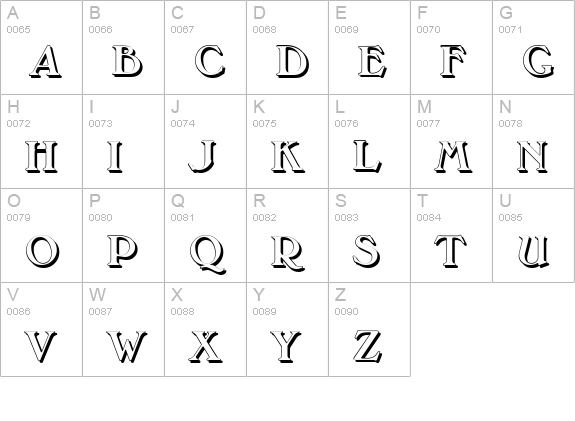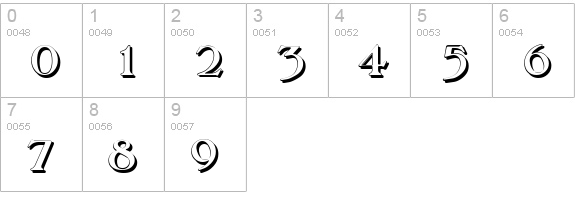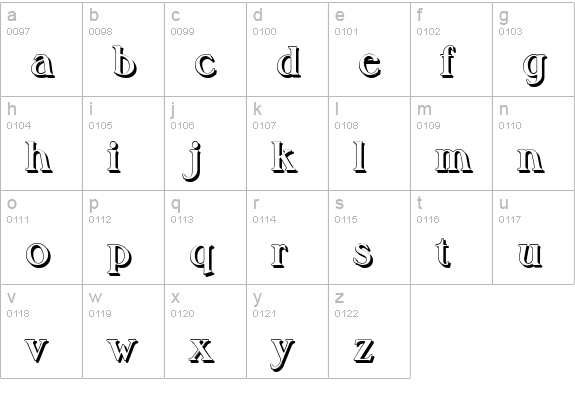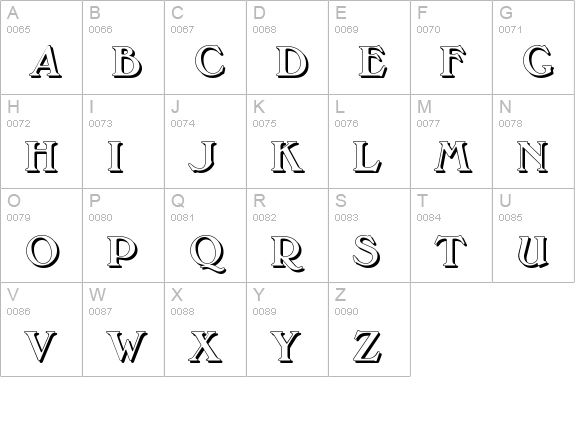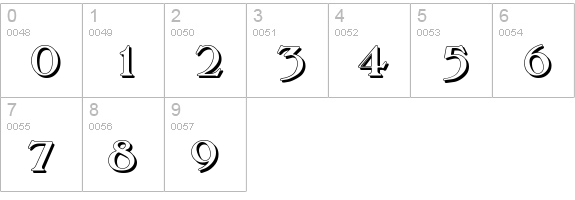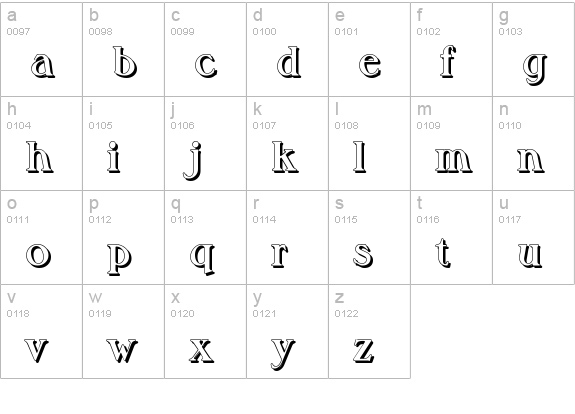
MelbourneShadow-Bold Font Details
MelbourneShadow-Bold is a strong, high-contrast variant in the MelbourneShadow typeface family \xE2\x80\x94 well suited to headlines, attention-grabbing titles, and strong calls-to-action.
MelbourneShadow-Bold font exudes a bold and striking presence with its sharp edges and strong lines, making it perfect for creating eye-catching designs that demand attention. This modern and versatile typeface is ideal for headlines, titles, posters, and branding projects that require a touch of sophistication and elegance. What sets MelbourneShadow-Bold font apart is its unique shadow effect that adds depth and dimension to each character, creating a sense of depth and visual interest. Whether used in print or digital designs, this font is sure to make a lasting impression on viewers. Best of all, MelbourneShadow-Bold font is available for free download at FontsMarket.com, allowing designers and creatives to access this stunning typeface without any cost. Don't miss out on the opportunity to elevate your projects with this exceptional font that combines style, impact, and elegance in one package. Download MelbourneShadow-Bold today and unleash your creativity like never before.